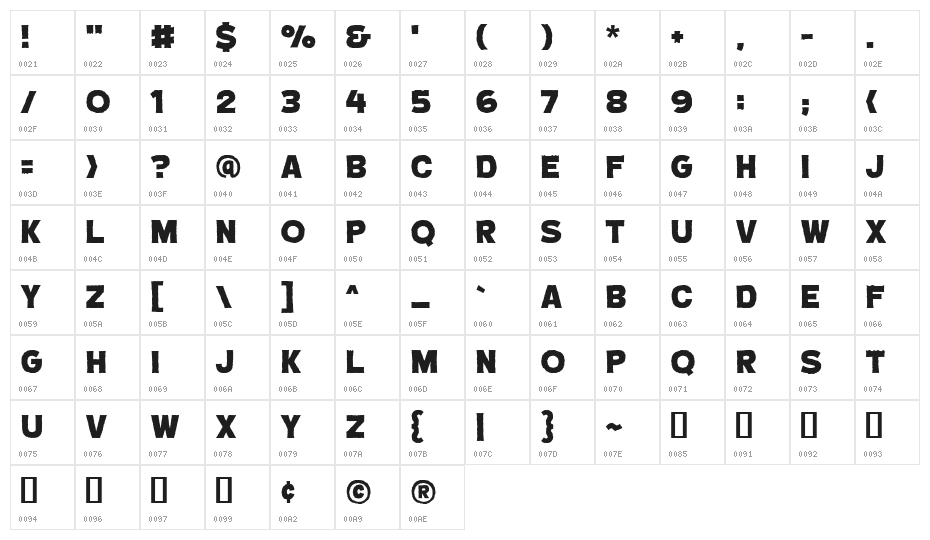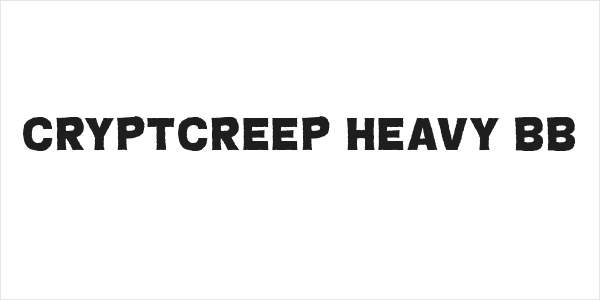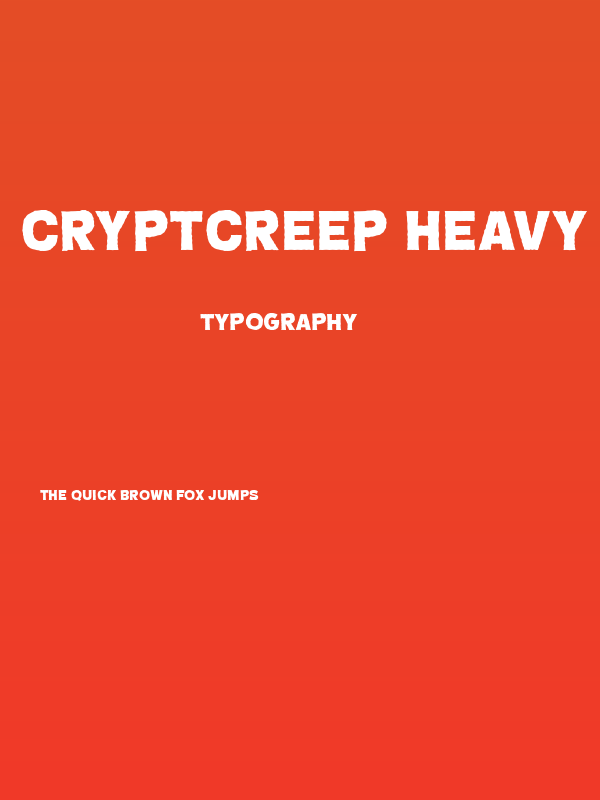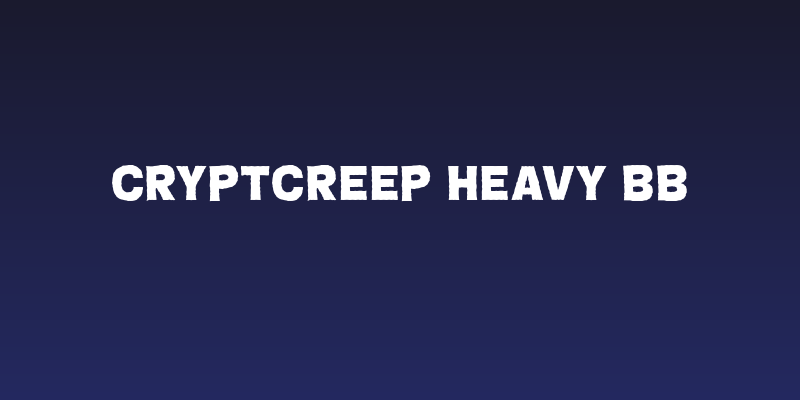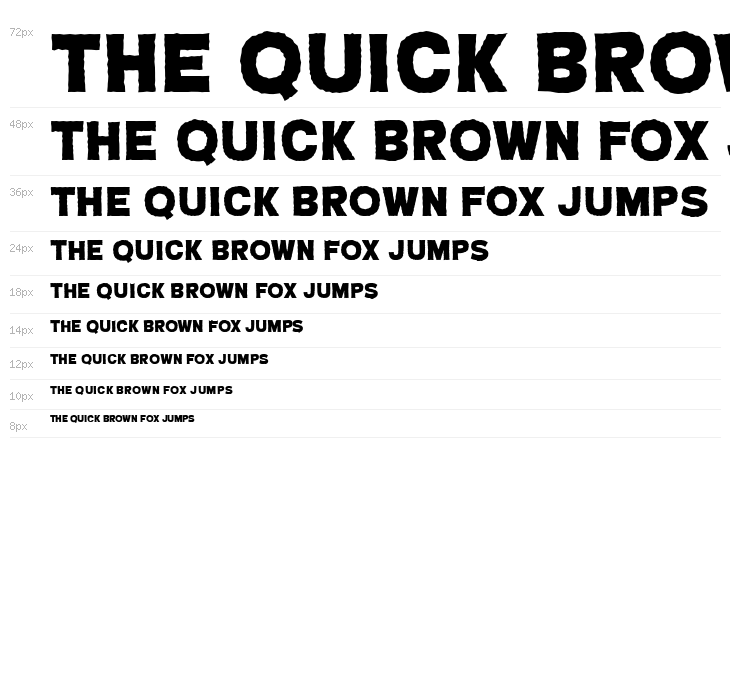
CryptCreep Heavy BB Font
CryptCreep Heavy BB Description
This font features a bold and heavy style with a slightly distressed appearance, giving it a rugged and edgy look. The characters are thick and substantial, with uneven edges that add a handcrafted feel. The uppercase and lowercase letters maintain a consistent weight, while the numerals and special characters follow the same bold aesthetic. This font's unique texture and strong presence make it ideal for projects that require a standout typeface with a touch of grit.
Proposed ProjectsIdeal for posters, album covers, video game titles, and branding that requires a bold and edgy look.